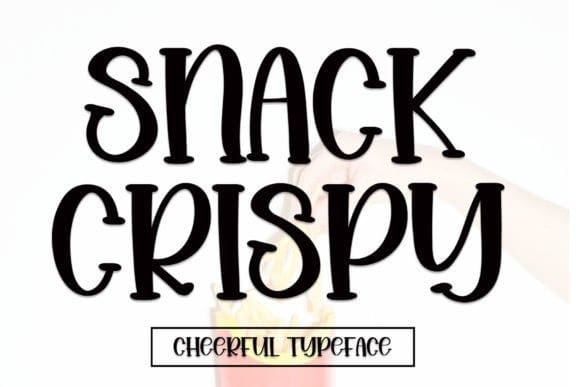
Snack Crispy Font
Snack Crispy Font is an enchanting handwritten display font. This versatile font has a wide spectrum of applications ranging from greeting cards to headlines and is guaranteed to add a romantic feel to your next project.